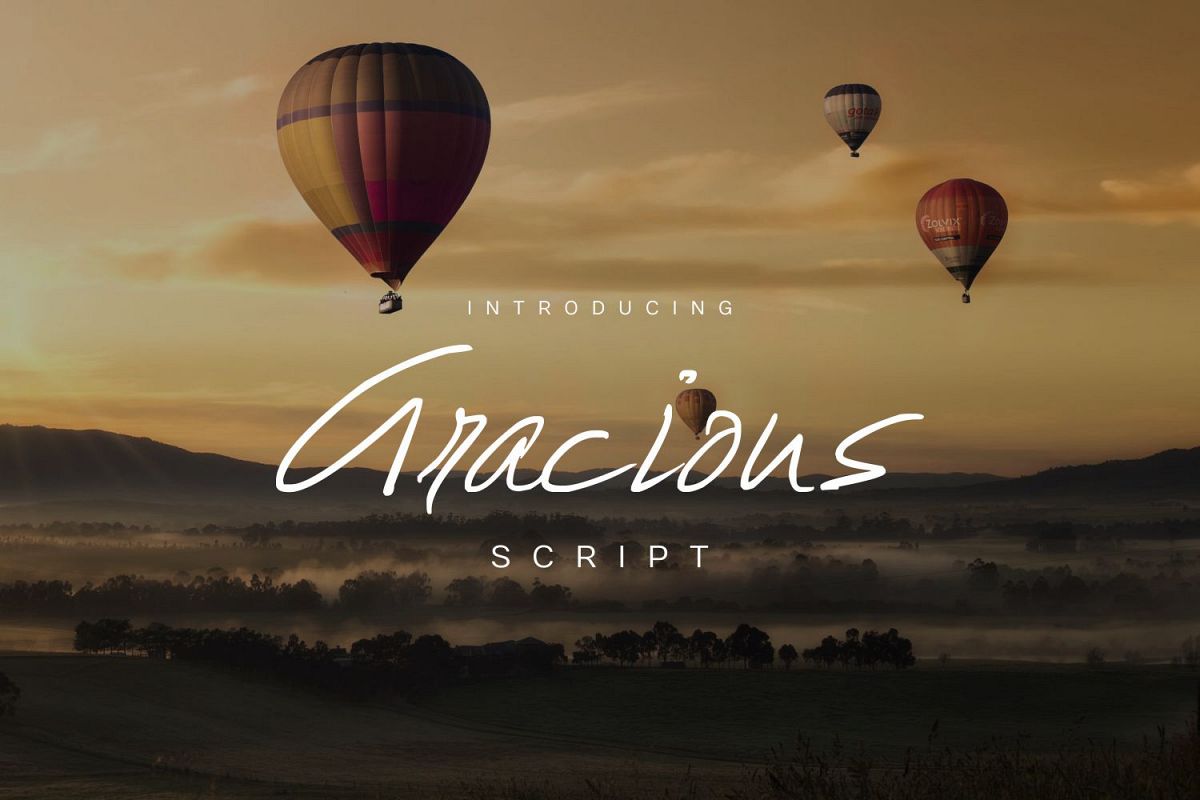
Gracious Script
Gracious Scrip
Gracious Script - It is a casual simple script font to be used in the day to day of your creations.
Marcelo Inez Graphic Designer
Gracious Script
By Marcelo Inez Graphic Designer